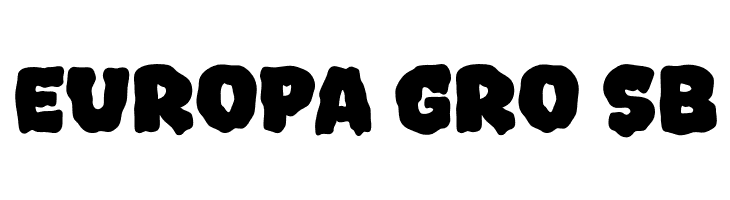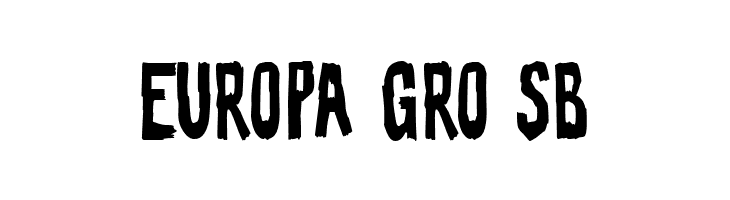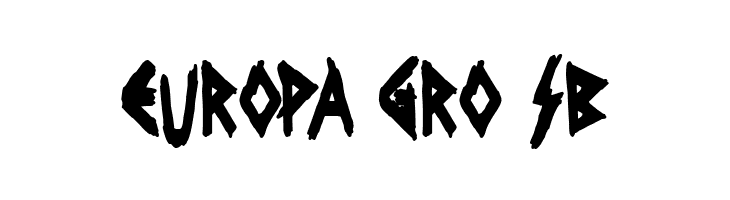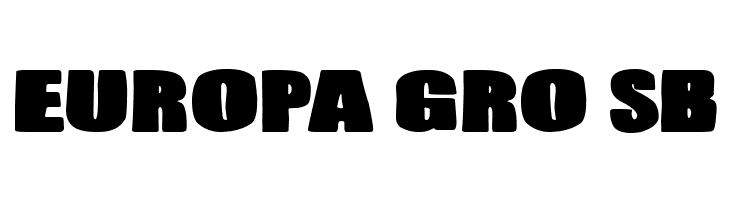
Bold, blobby, and spooky display font with irregular edges.
Bold, 3D outlined display font with a retro feel.
Bold, hand-drawn display font with jagged, energetic strokes.
Bold stencil font with industrial, utilitarian style and clear breaks.
Distorted, jagged display font with a chaotic, horror-inspired style.
Bold, jagged display font with flame-like edges and dramatic style.
Edgy, hand-drawn display font with sharp, angular forms.
A bold, condensed sans-serif font designed for maximum impact.
A bold, distressed display font with jagged, energetic edges.
Distressed, hand-drawn display font with bold, uneven strokes.